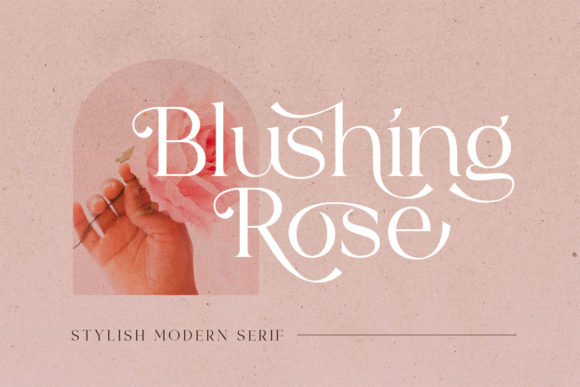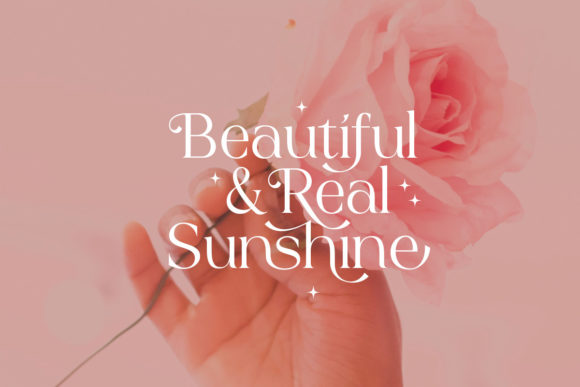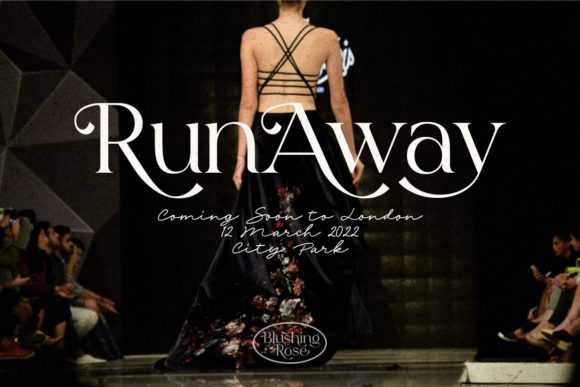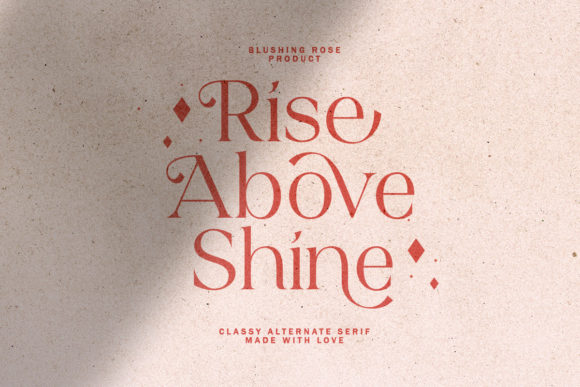
Blushing Rose Font: Elegant Serif for Modern Logo Design & Branding
About the Blushing Rose Font
The Blushing Rose Font offers a perfect balance of form and function for your design needs. Blushing Rose is an elegant and stylish serif font. Trendy and stylish, this font will elevate each of your creations. Add this font to your most creative ideas, and notice how it makes them stand out!
Blushing Rose’s elegant serifs make it ideal for headlines, logos, and short text blocks in branding materials, invitations, or packaging where a touch of sophistication is desired. Its refined curves are less suitable for body text or long paragraphs, as readability would suffer. Avoid using it in UI design or applications requiring high legibility at small sizes.
This font exudes a personality that is both elegant and approachable. It’s confident yet not overly assertive. For a balanced pairing, consider a clean sans-serif like Montserrat or Lato for body copy, offering a strong contrast without competing for attention. Alternatively, a delicate script font such as Great Vibes could add a layer of handwritten charm for secondary elements, enhancing the overall feeling of luxury.
A geometric sans-serif like Futura would provide a modern contrast, suitable for projects aiming for a sophisticated and contemporary feel. Conversely, pairing it with a warmer serif like Playfair Display could enhance the feeling of classic elegance.
Blushing Rose Font Usage Examples
Blushing Rose Font Example